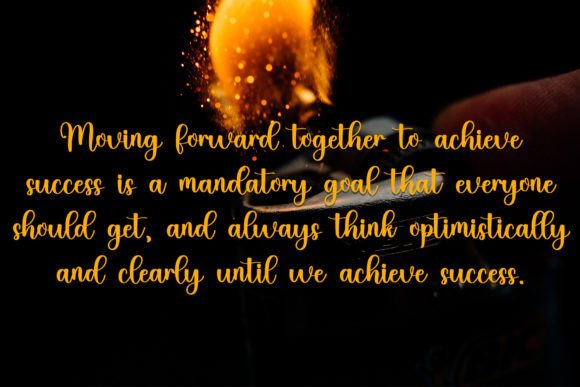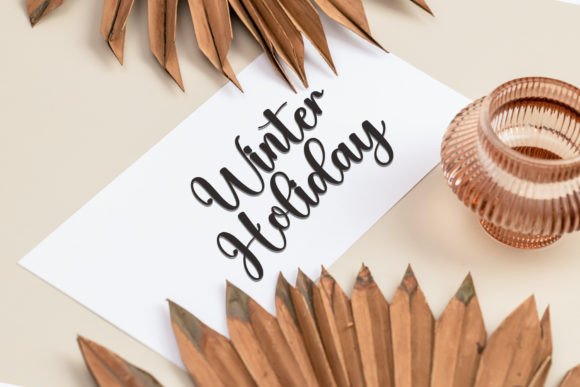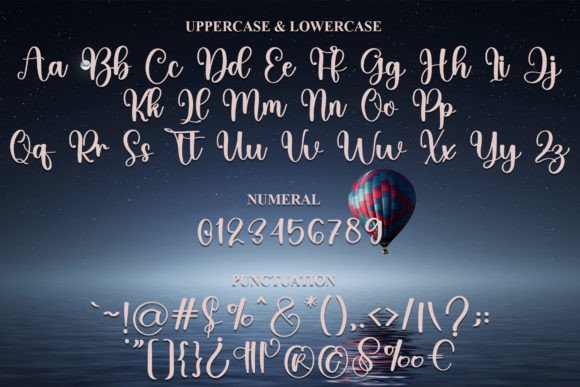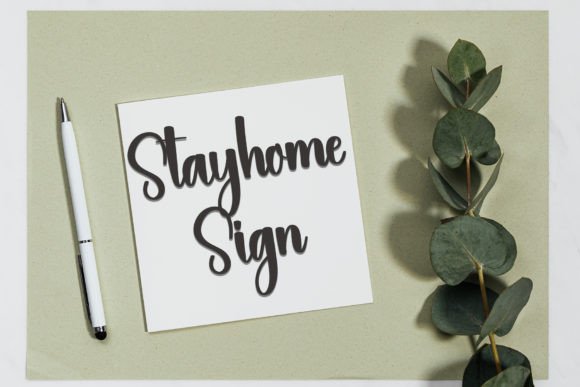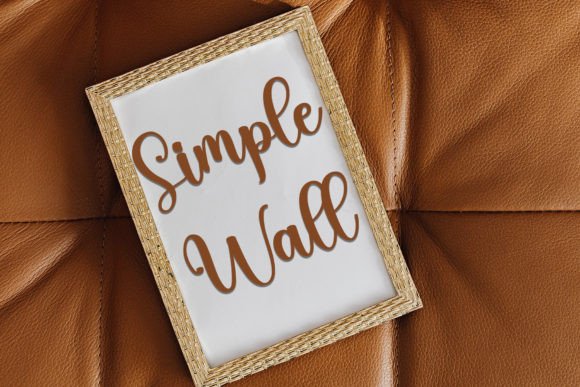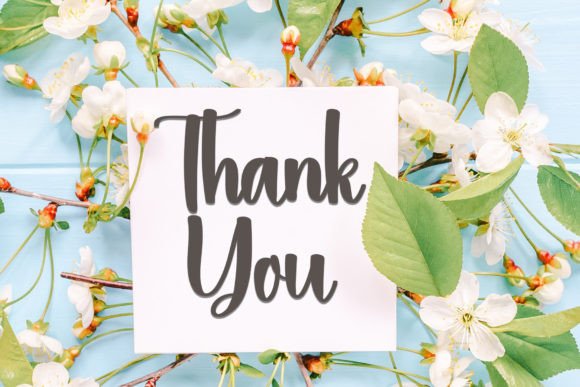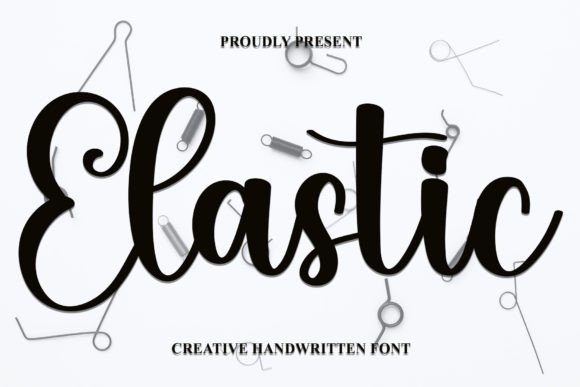
Introducing Elastic Font: The Perfect Handwritten Script for Creative Projects
Are you a designer or crafter looking for a unique and versatile font to elevate your creative projects? Look no further than Elastic Font, a neat and casual handwritten script font that’s perfect for a wide range of applications. In this article, we’ll explore the features and benefits of Elastic Font, and show you how it can be used to create stunning designs that capture your audience’s attention.
What is Elastic Font?
Elastic Font is a beautifully crafted handwritten script font that’s designed to be both elegant and approachable. Its casual, laid-back vibe makes it perfect for creating flyers, wedding invitation cards, logos, banners, birthday cards, social media posts, and thumbnails. Whether you’re a professional designer or a DIY crafter, Elastic Font is an excellent choice for anyone looking to add a personal touch to their designs.
Key Features of Elastic Font
• Handwritten script style: Elastic Font features a beautiful, handwritten script style that’s both elegant and casual.
• Neat and legible: Despite its casual vibe, Elastic Font is remarkably legible, making it perfect for use in a wide range of applications.
• Versatile: Elastic Font can be used for everything from formal events like weddings and anniversaries to casual social media posts and birthday cards.
• Easy to read: Elastic Font is designed to be easy to read, even at small sizes, making it perfect for use in thumbnails and social media posts.
Use Cases for Elastic Font
Elastic Font is an incredibly versatile font that can be used in a wide range of applications. Here are just a few ideas to get you started:
• Wedding invitation cards: Elastic Font is perfect for creating beautiful, elegant wedding invitation cards that set the tone for your special day.
• Flyers and brochures: Use Elastic Font to create eye-catching flyers and brochures that grab your audience’s attention.
• Social media posts: Elastic Font is perfect for creating engaging social media posts that stand out from the crowd.
• Logos and branding: Elastic Font can be used to create unique and memorable logos and branding materials that reflect your personality and style.
• Birthday cards and party invitations: Use Elastic Font to create fun and festive birthday cards and party invitations that your friends and family will love.
Tips for Using Elastic Font
Here are a few tips for getting the most out of Elastic Font:
• Experiment with different colors and textures: Elastic Font looks great in a wide range of colors and textures, so don’t be afraid to experiment and find the perfect combination for your design.
• Use it with contrasting fonts: Elastic Font pairs well with a wide range of fonts, so try using it with contrasting fonts to create visual interest and hierarchy.
• Pay attention to spacing and kerning: As with any font, make sure to pay attention to spacing and kerning to ensure that your text is easy to read and visually appealing.
Elastic Font is a beautiful and versatile handwritten script font that’s perfect for designers and crafters looking to add a personal touch to their creative projects. With its casual, laid-back vibe and remarkable legibility, Elastic Font is an excellent choice for a wide range of applications, from formal events to casual social media posts. Whether you’re a professional designer or a DIY crafter, Elastic Font is sure to become a go-to font in your collection.